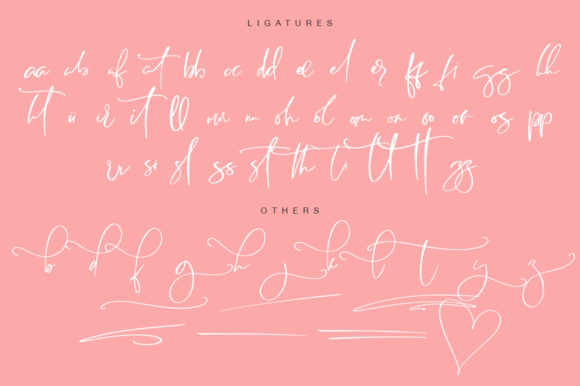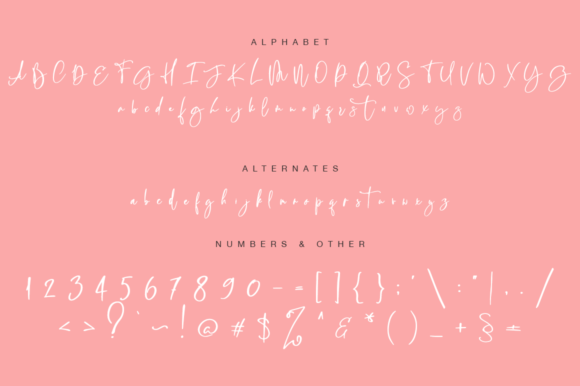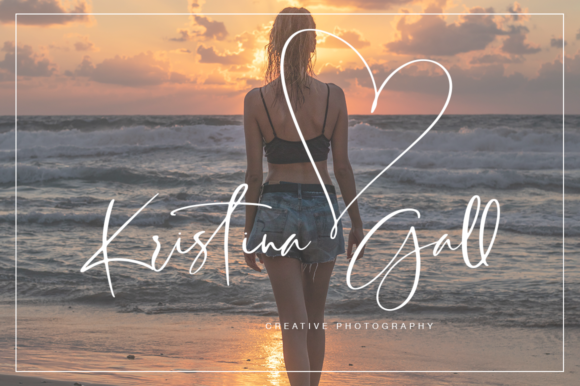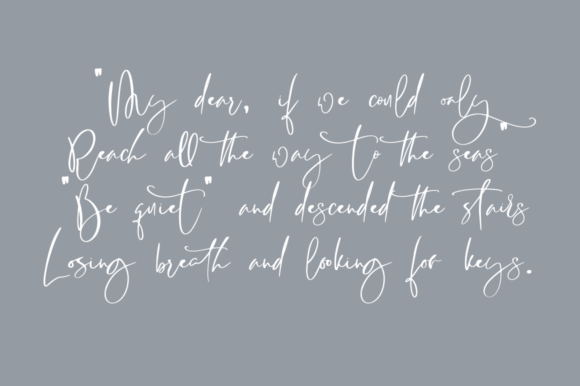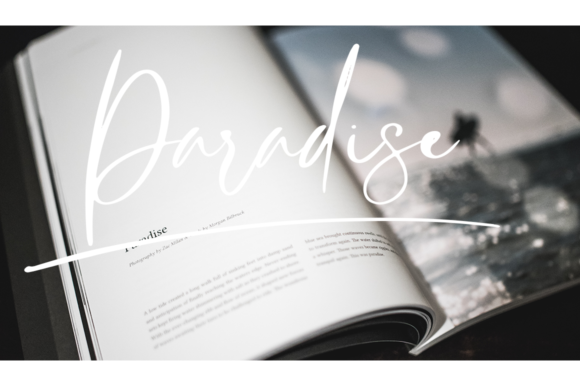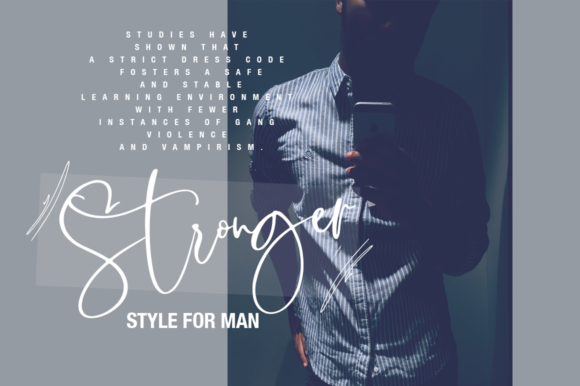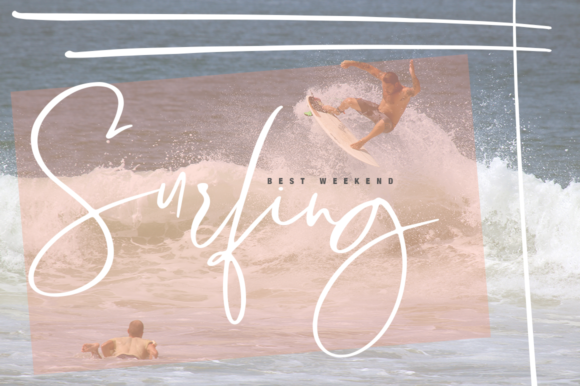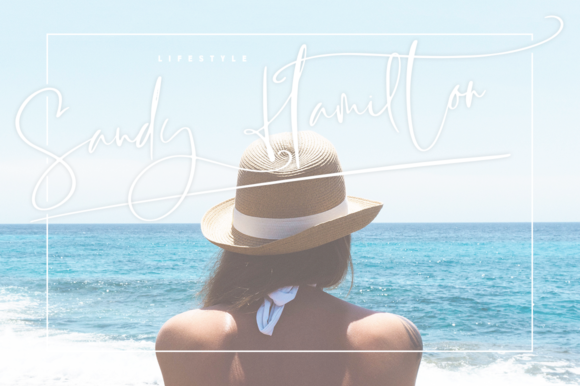
Rasty King Font
The Rasty King is an elegant, handmade calligraphy font. It’s perfect for greeting cards, branding materials, business cards, quotes, posters, and more!